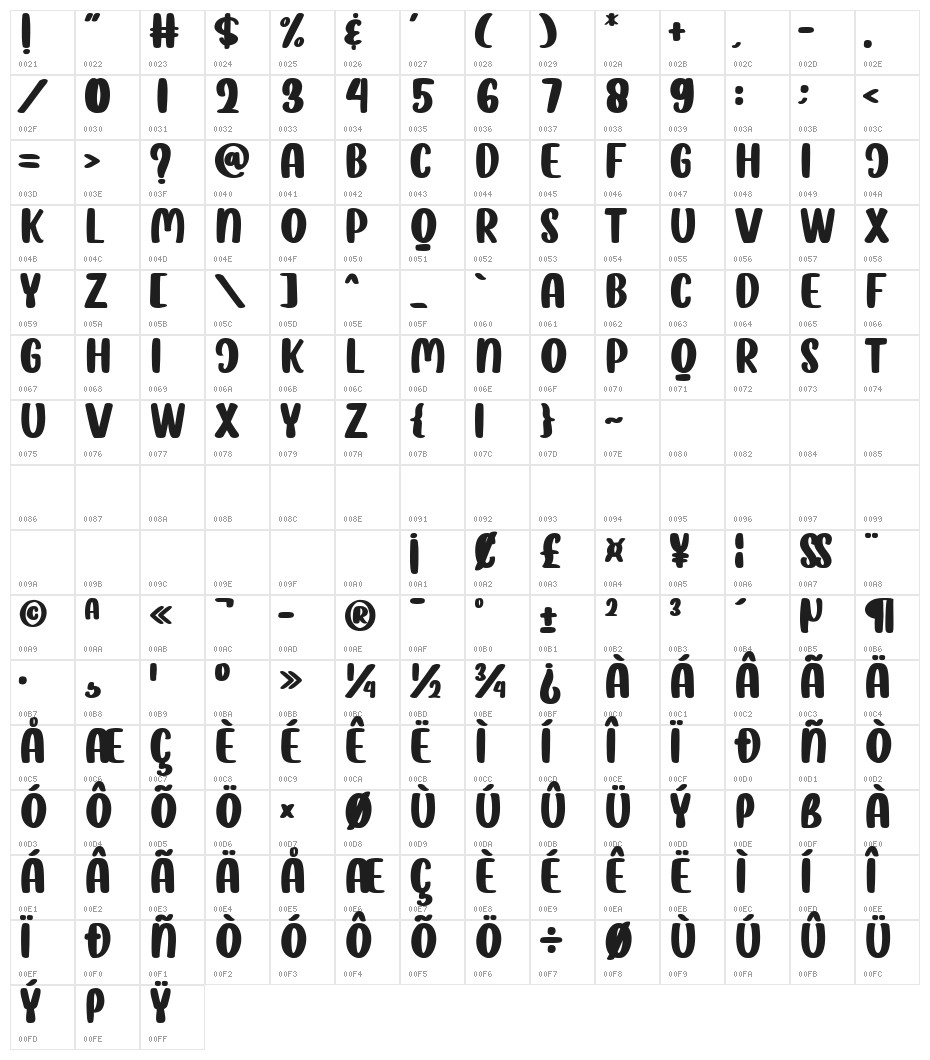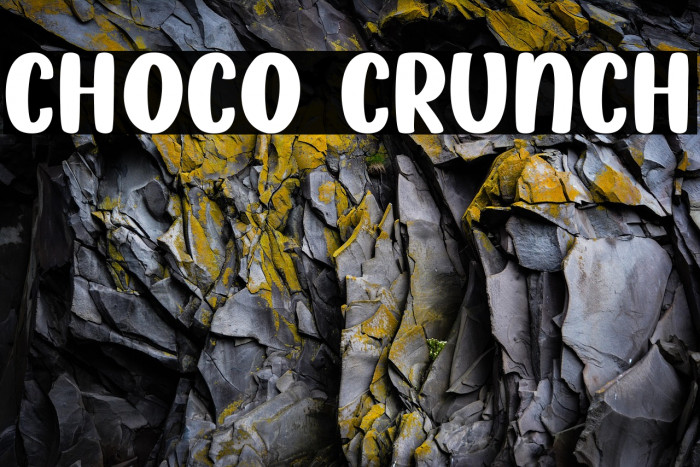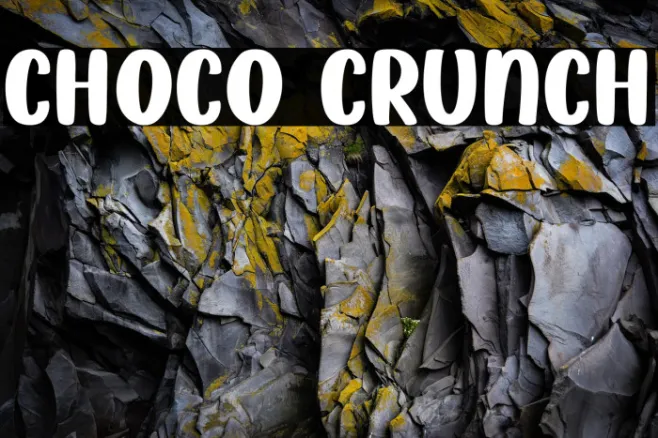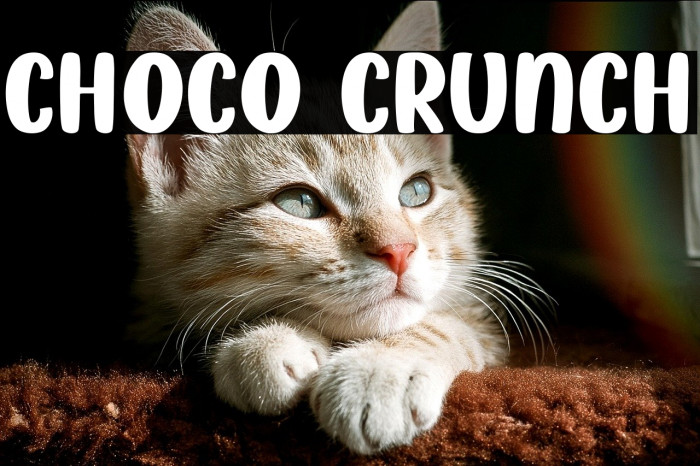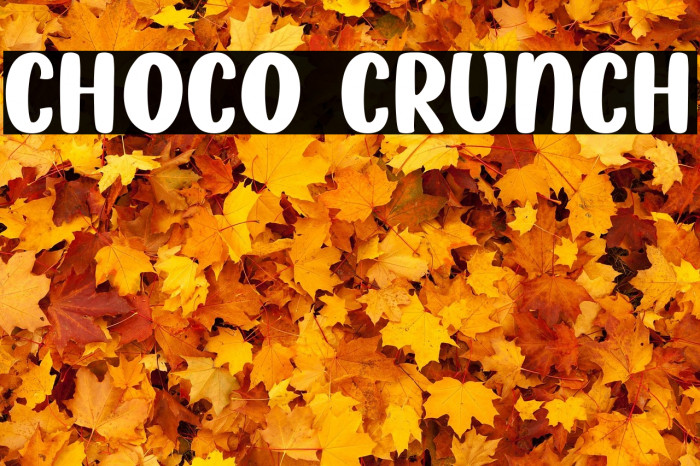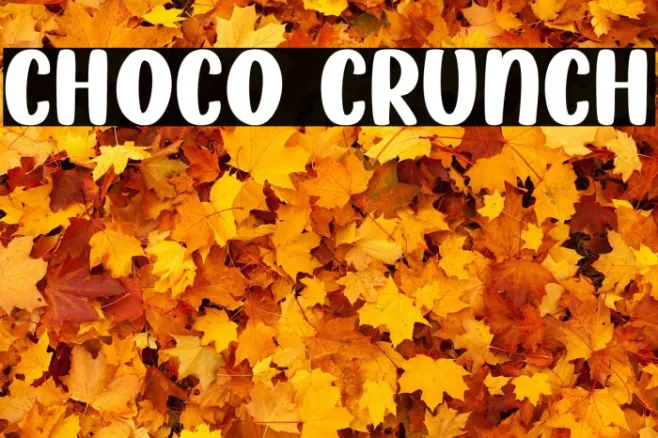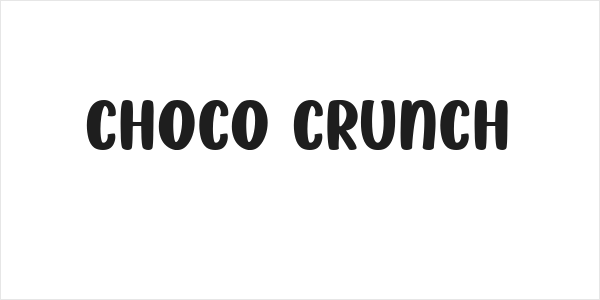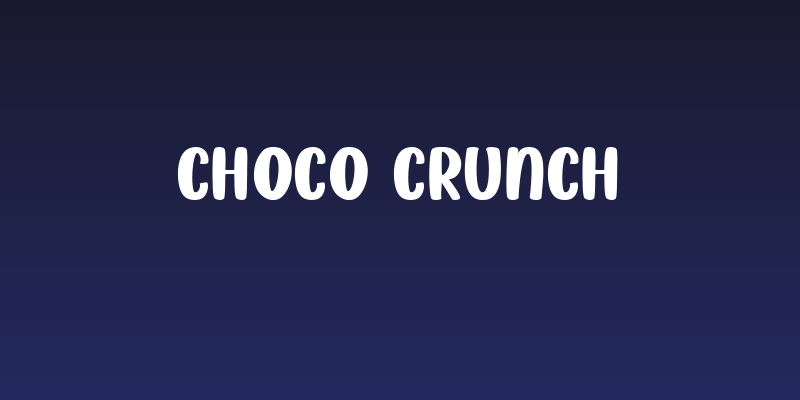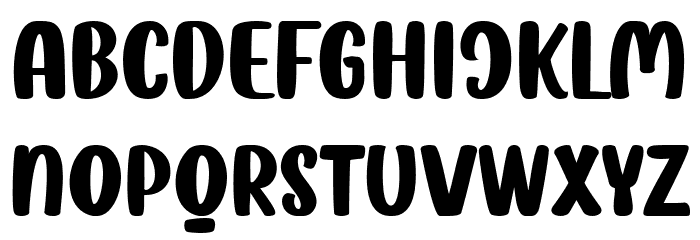
Choco Crunch Font
Choco Crunch Description
This playful and bold font features thick, rounded characters with a whimsical touch. The letters are uniformly bold, with a slightly condensed appearance, giving them a strong presence. The strokes are consistent in thickness, contributing to a low contrast look. The overall style is decorative, making it ideal for projects that require a fun and engaging typeface. The font includes a full set of uppercase and lowercase letters, numbers, and a variety of special characters, ensuring versatility in design applications.
| Overall Style | Playful, Decorative |
| Proposed Projects | Ideal for children's books, playful branding, packaging, and posters. |